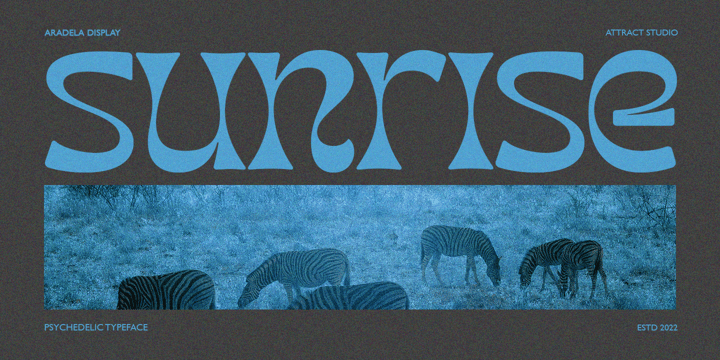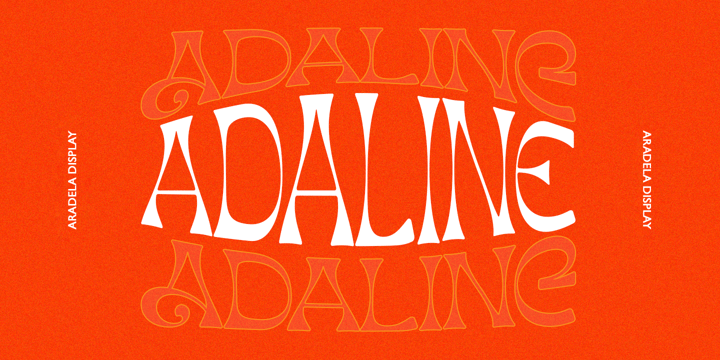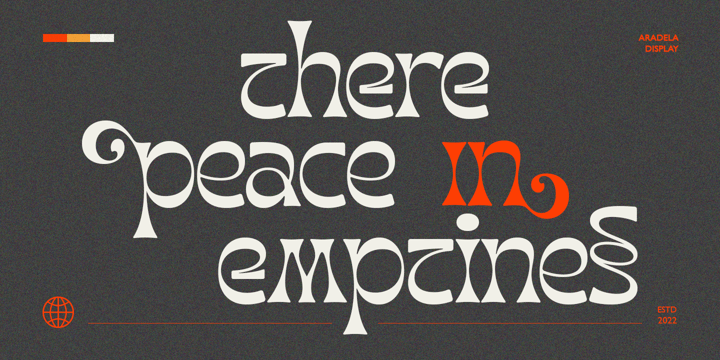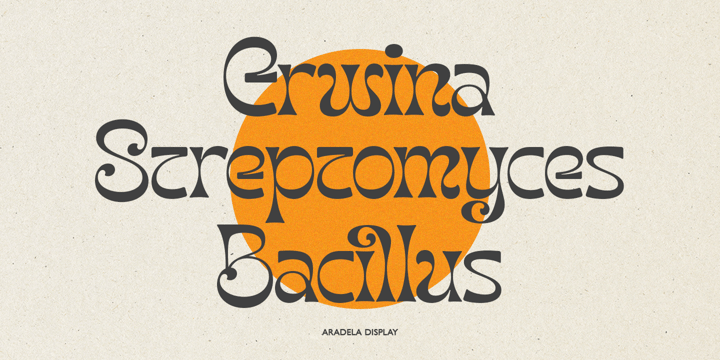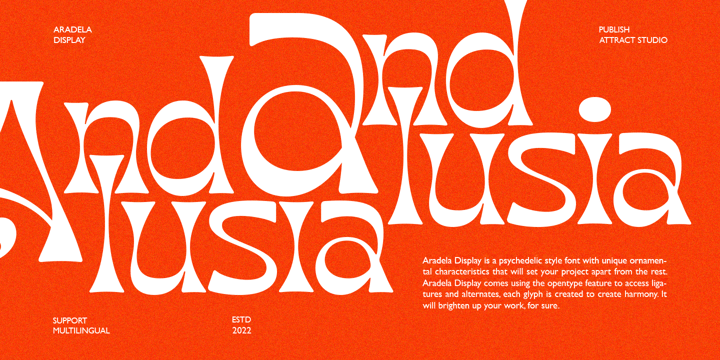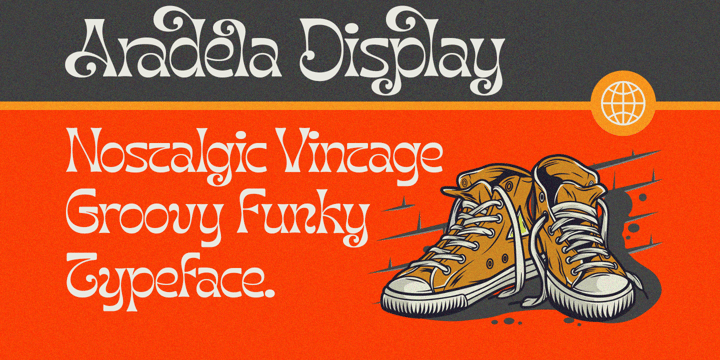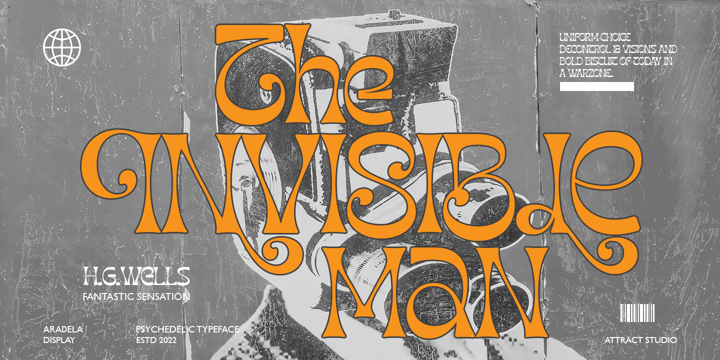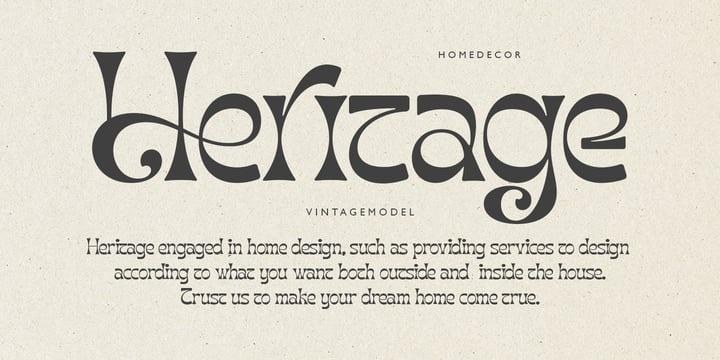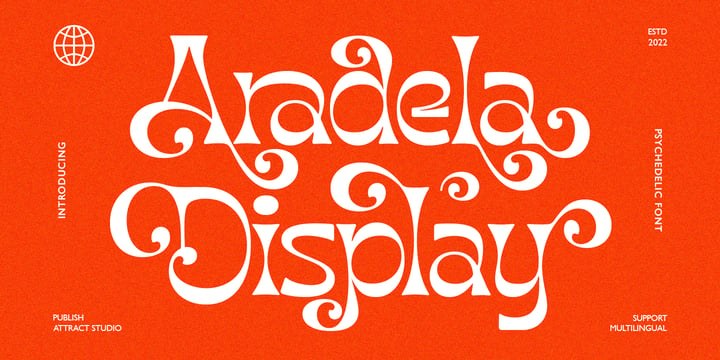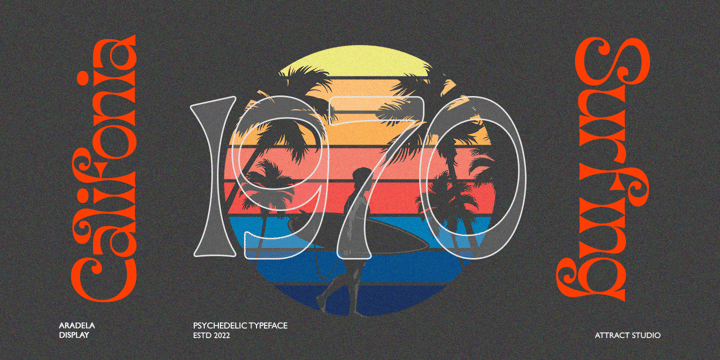
Aradela Display Font
Aradela Display is a psychedelic style font with unique ornamental characteristics that will set your project apart from the rest. Aradela Display comes using the opentype feature to access ligatures and alternates, each glyph is created to create harmony. It will brighten up your work, for sure.
Where Aradela Display Font works best
Aradela Display Font is built for size: event posters, hero headlines and billboard-style layouts.
High contrast display type like Aradela Display Font reads instantly in thumbnails and motion graphics.
What is Aradela Display Font good for?